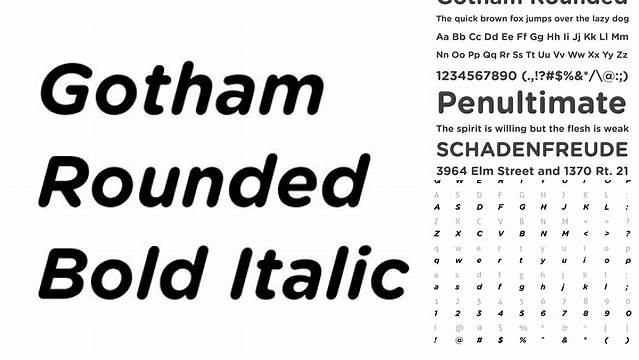
Hey guys, if you're on the hunt for a font that's both stylish and versatile, look no further than Gotham Rounded Bold Italic. It's a fantastic choice for a wide array of design projects, from eye-catching headlines to sleek body text. And the best part? You can snag this beauty for free! In this comprehensive guide, we'll walk you through everything you need to know about the Gotham Rounded Bold Italic font, including where to download it safely and how to use it effectively. Get ready to elevate your designs with this amazing typeface!
What Makes Gotham Rounded Bold Italic Special?
First off, let's talk about why Gotham Rounded Bold Italic is such a popular choice. This font is part of the broader Gotham family, known for its clean, geometric design. The rounded version softens the sharp edges, giving it a more friendly and approachable feel. The bold weight adds a touch of prominence, making it perfect for grabbing attention. And, of course, the italic style adds a touch of elegance and dynamism. This combination results in a typeface that is incredibly adaptable. Whether you're designing a website, a poster, or a logo, Gotham Rounded Bold Italic can help you create a polished and professional look.
Let's delve deeper into what makes this font so unique. The geometric design is a nod to the classic sans-serif fonts, but the rounded corners bring a modern twist. This font works wonderfully in both digital and print media. The bold weight ensures that your text stands out, while the italic style provides a touch of sophistication. The versatility of Gotham Rounded Bold Italic is one of its biggest strengths. It can be used for headlines, subheadings, body text, and even in smaller sizes for captions. It’s a great font for branding, especially for companies that want to convey a sense of approachability and modernity. Furthermore, the font's legibility is another key factor. The clean lines and clear letterforms make it easy to read, even at smaller sizes. This is crucial for any design, as the primary goal of text is to convey information effectively. The font's aesthetic appeal also contributes to a positive user experience, making your designs more engaging and enjoyable to view. The balanced proportions and design of each character allow the text to be visually harmonious, which ultimately makes your work more appealing. It's this combination of aesthetics and functionality that makes Gotham Rounded Bold Italic a winner!
The design itself has a certain rhythm that makes it very attractive. The balance between the boldness and the roundness creates a visual harmony that's easy on the eyes. Each character is crafted with precision, ensuring that the font looks great no matter where it is used. The font's adaptability is also a huge advantage. You can use it in different sizes, weights, and styles without losing its appeal. It’s an excellent choice for various projects, including website design, social media graphics, and print materials. The font is able to convey both a sense of stability and dynamism, making it perfect for businesses looking to strike a balance between trustworthiness and a contemporary vibe. This is why Gotham Rounded Bold Italic is a designer's go-to.